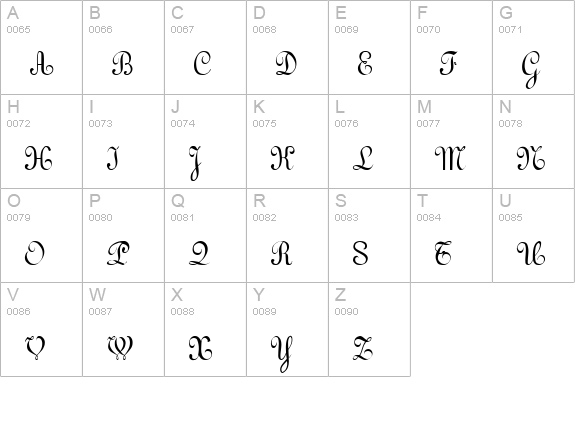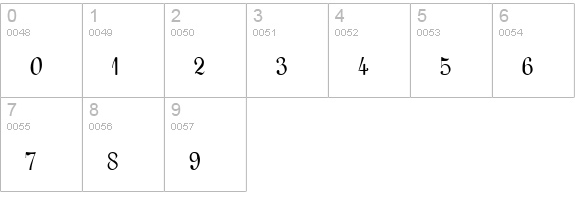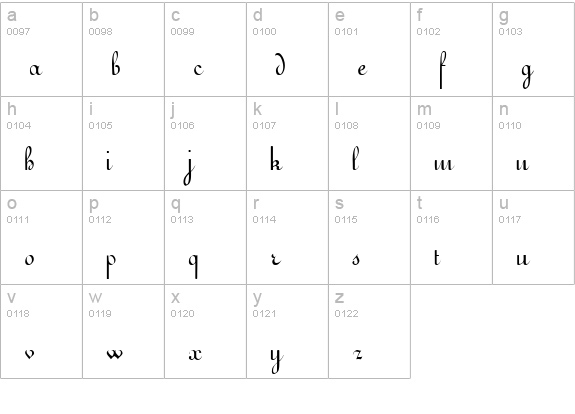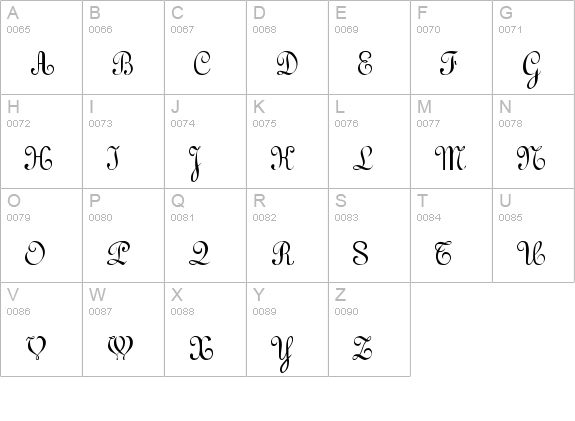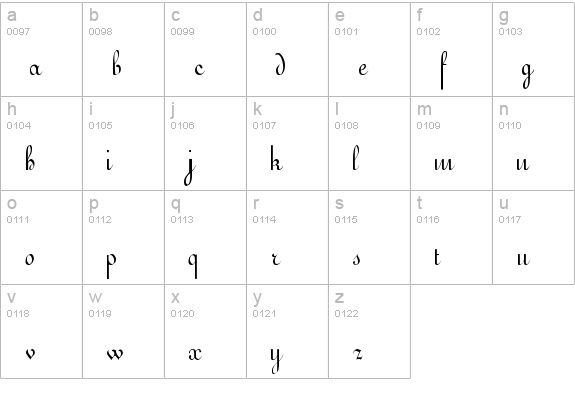
Dschidda Font Details
Dschidda font is a modern and sophisticated typeface that exudes elegance and charm. With its sleek lines and dynamic curves, this font is perfect for a wide range of design projects, from branding to editorial layouts. The Dschidda font is versatile and can be used for both headings and body text, making it a valuable addition to any designer's toolkit. The best part? Dschidda font is available for free download at FontsMarket.com. Whether you're a seasoned designer looking to refresh your font collection or a newbie searching for the perfect typeface for your latest project, Dschidda font has got you covered. Download this stunning font today and elevate your designs with its timeless appeal.